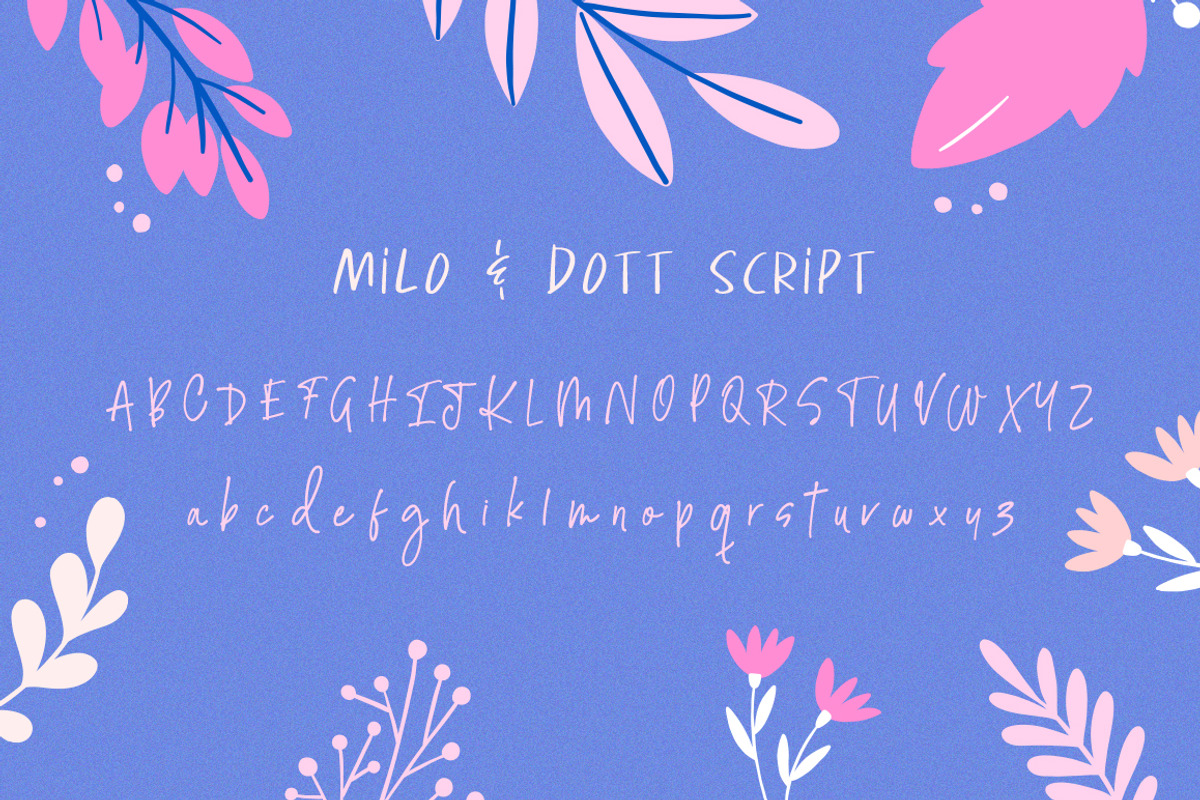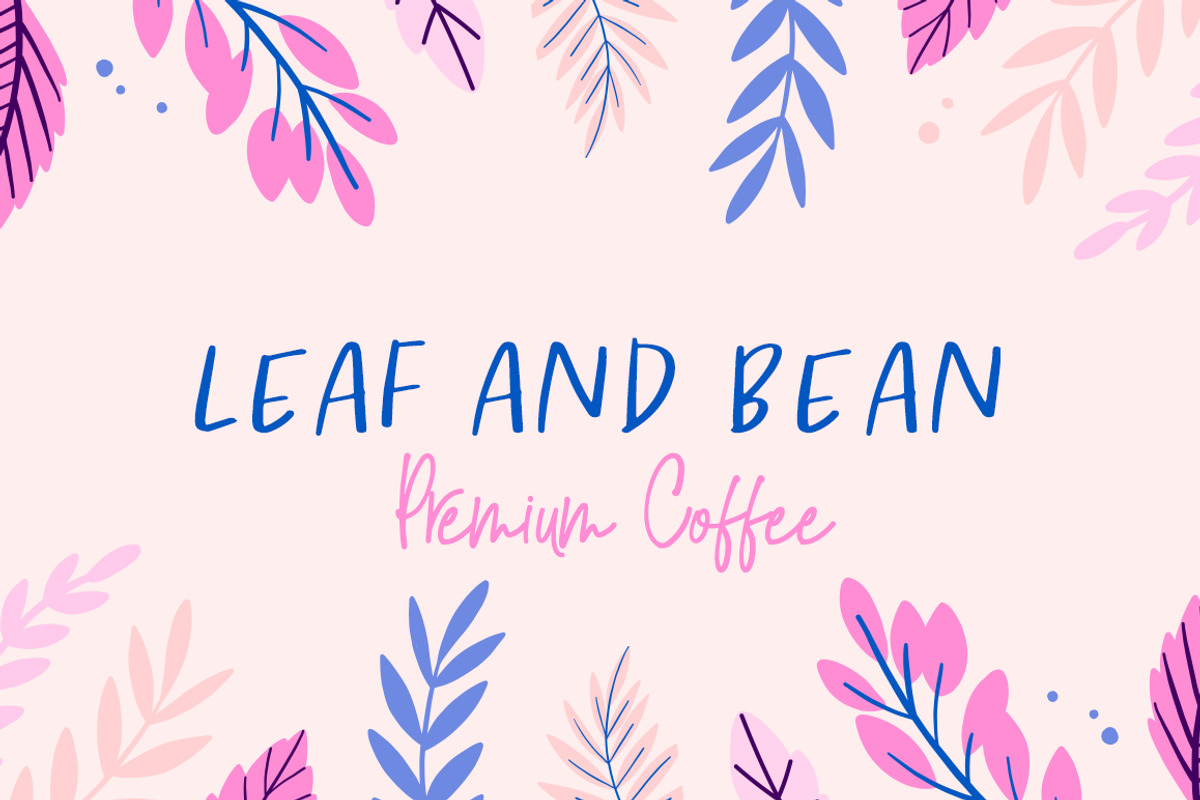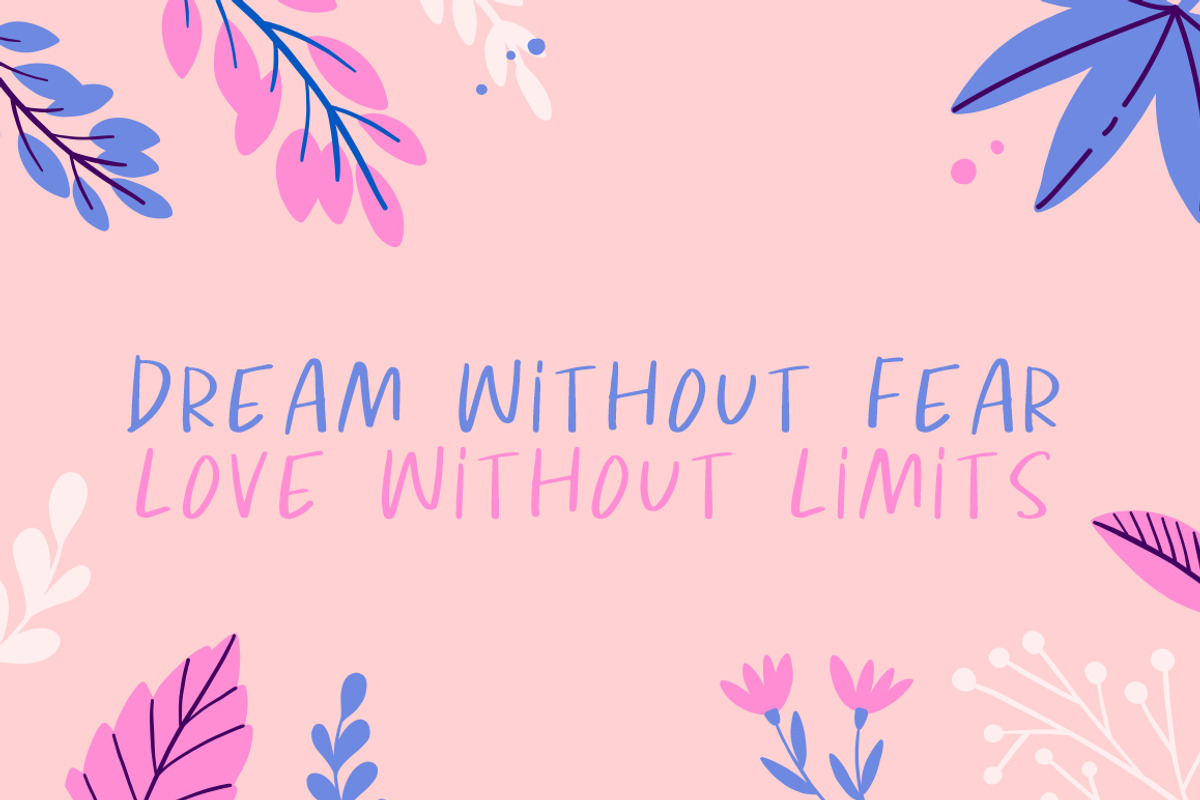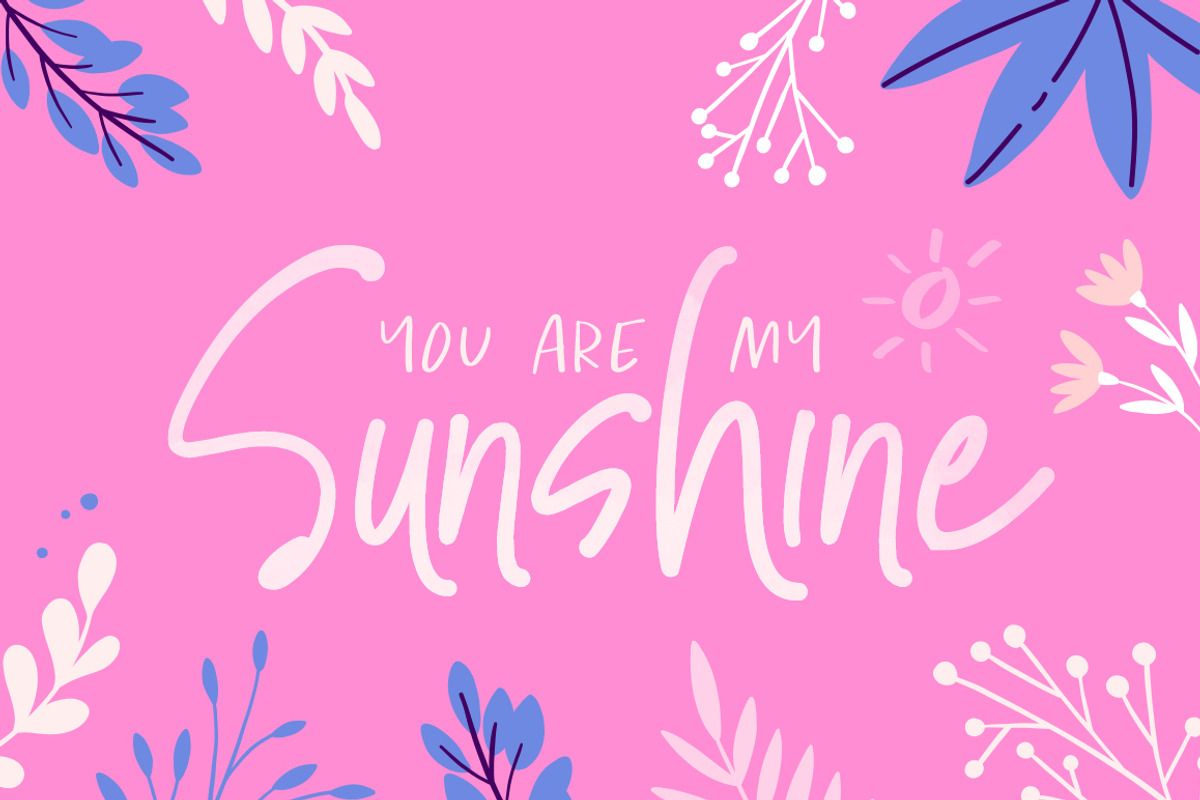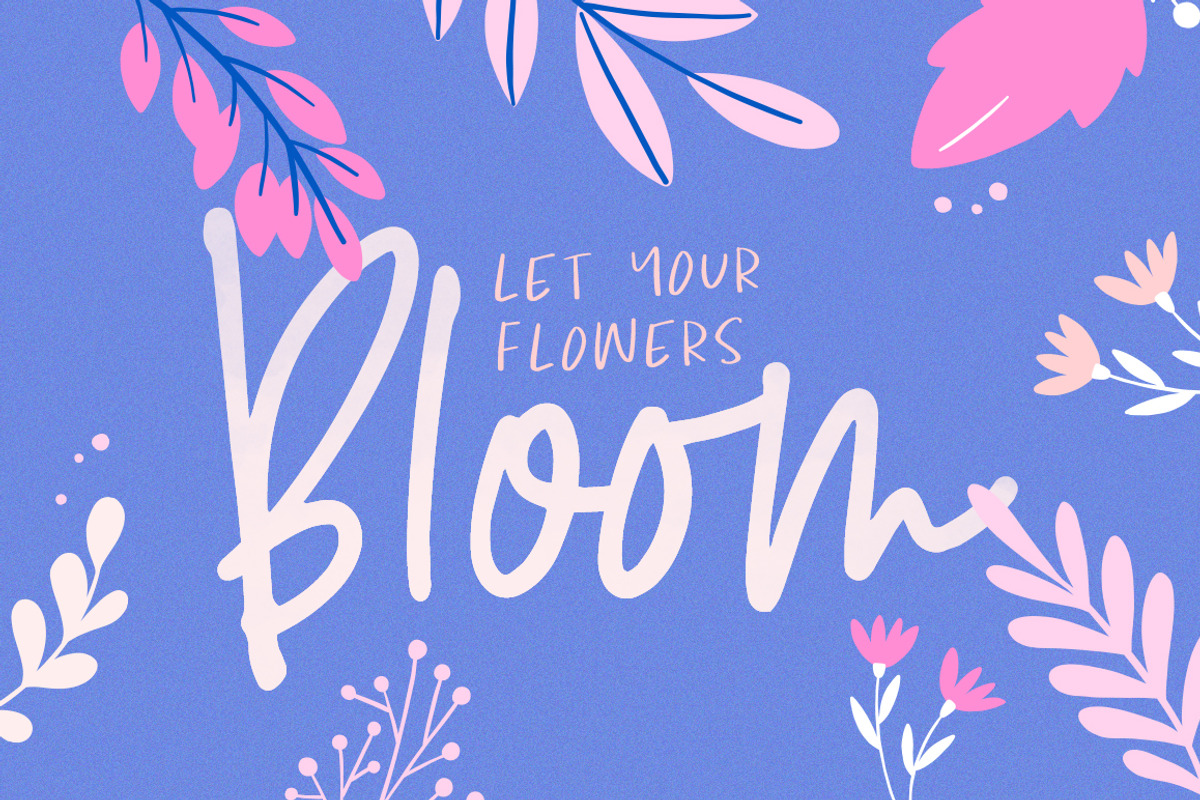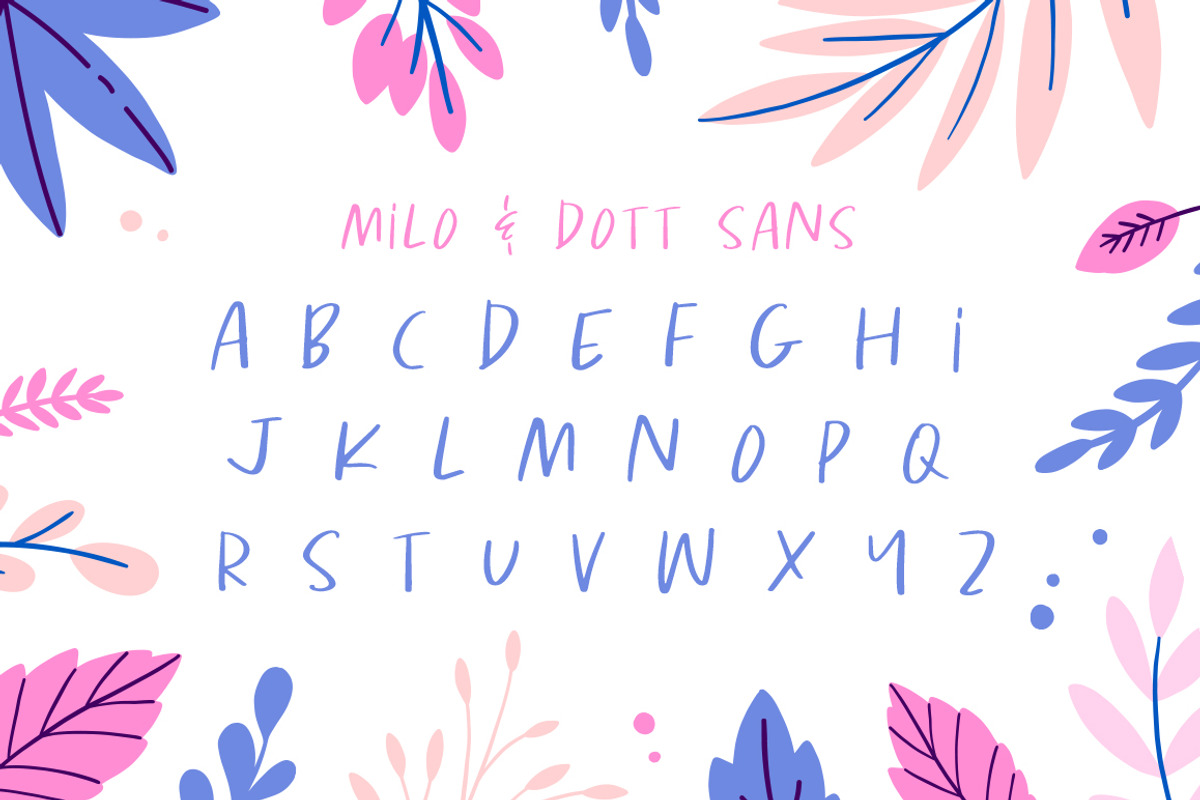
Milo & Dott Font Duo
Milo and Dott, a cute new duo that combines a quirky uppercase font with a handwritten script! They pair together perfectly and can be used in a variety of designs. They even work well for logos! Don’t just take our word for it, see for yourself, you won’t be disappointed!
Milo & Dott Font Duo by Salt & Pepper Designs fits naturally into Branding, posters, packaging, typography.